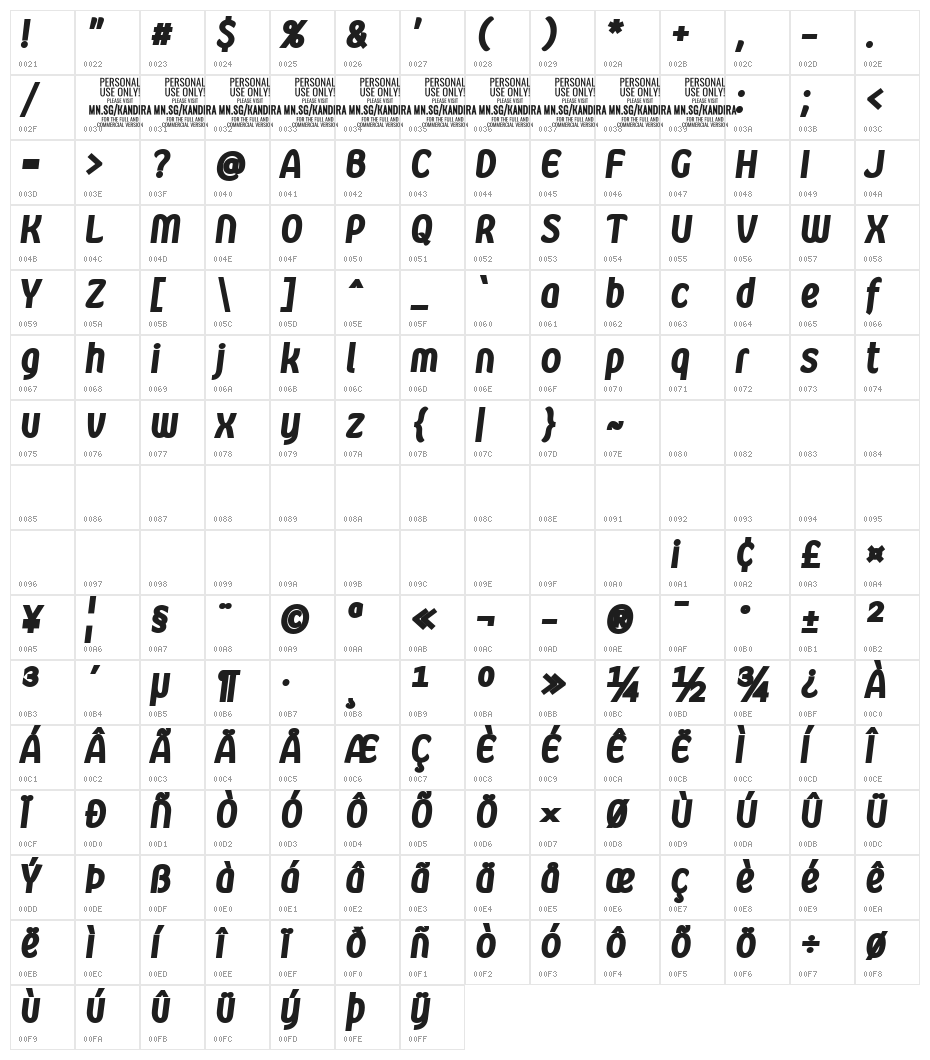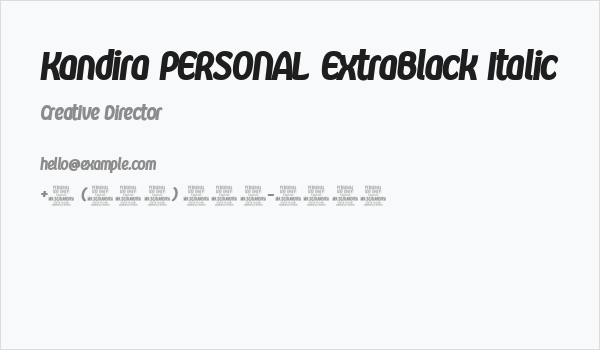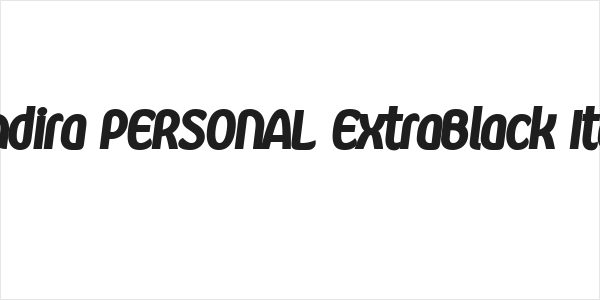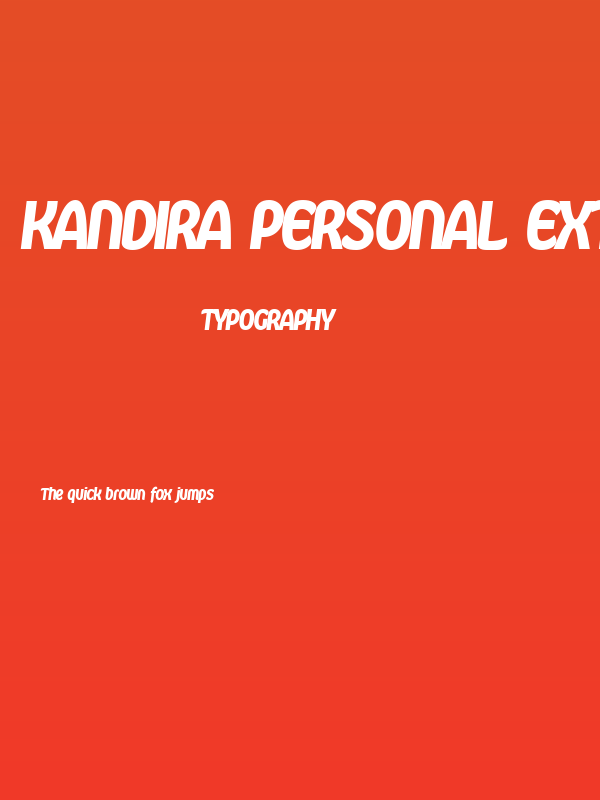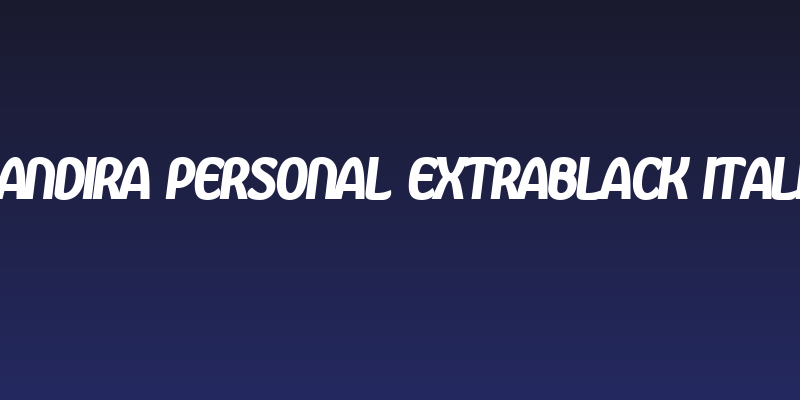
Kandira PERSONAL ExtraBlack Italic Font
Kandira PERSONAL ExtraBlack Italic Description
This font exhibits a bold and dynamic style with a strong italic slant, giving it a sense of movement and energy. The characters are thick and robust, providing a powerful visual impact. The uppercase and lowercase letters maintain a consistent weight, contributing to a cohesive appearance. The font's design is modern and sleek, with smooth curves and clean lines that enhance its readability. The special characters are crafted with the same boldness, ensuring they stand out effectively. Overall, this font is designed to make a statement, perfect for grabbing attention in any design project.
| Proposed Projects | Ideal for branding, advertising, headlines, and posters where a strong visual impact is needed. |